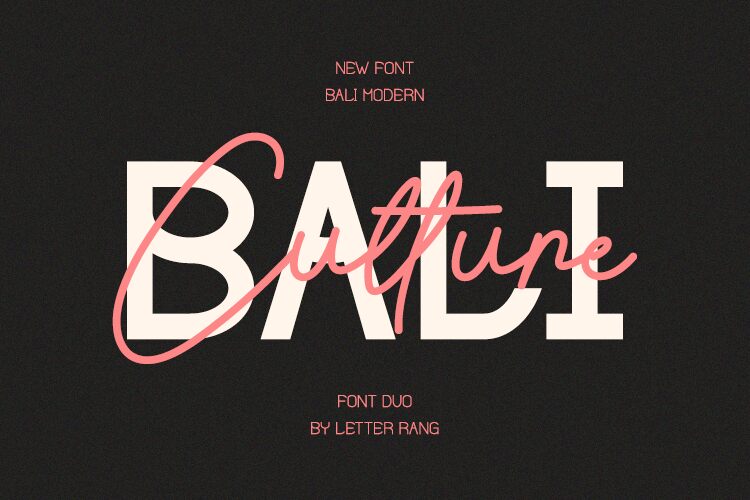
Bali Culture Bold Bold
Bali Culture Bold, part of the Bali Culture font family designed by Rangga Putra Budi Pratama, is a stunning display font with a semi-light weight. Inspired by traditional Balinese culture and art, this font is perfect for projects that require an exotic and unique touch. Use it to create eye-catching posters, authentic branding materials, or even for digital art pieces. With its intricate details and bold presence, Bali Culture Bold will make your designs stand out from the rest. Try it out for yourself and add some Balinese flair to your next project!
Hi, My name is Rangga. This is my Bali Culture font.